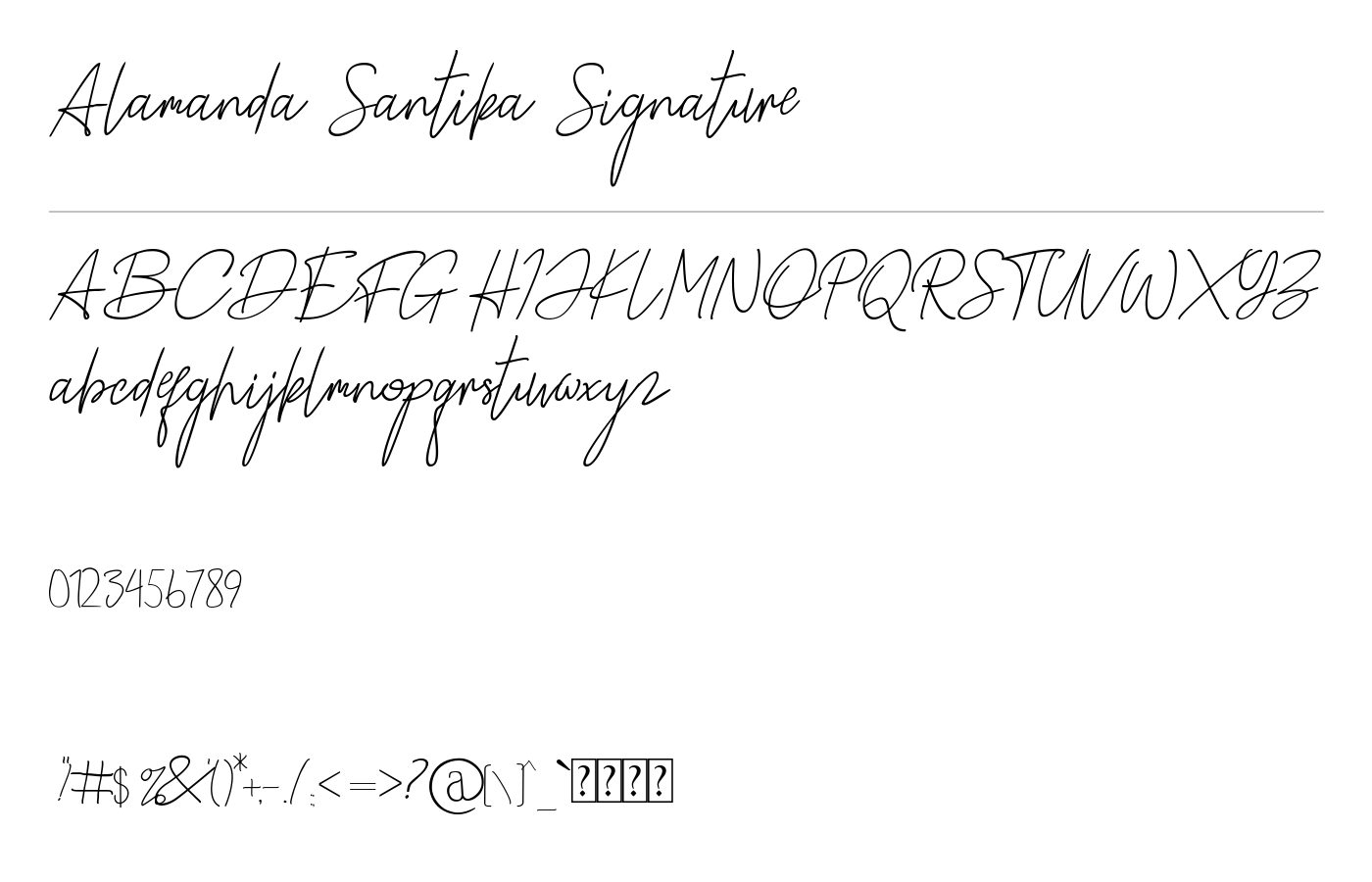
Alamanda Santika Signature is a delicate, handwritten script font characterized by its thin, flowing strokes that mimic elegant, natural handwriting. Its tall, airy letterforms offer a refined and personal touch, making it ideal for branding, invitations, and creative projects that seek a sophisticated yet approachable feel. This font works wonderfully for stylish logos and classy editorial designs where a graceful and authentic signature style is desired.
Alamanda Santika Signature Font
About Alamanda Santika Signature Font
| Font family | Alamanda Santika Signature Font |
| Designer | Arfi Ardian |